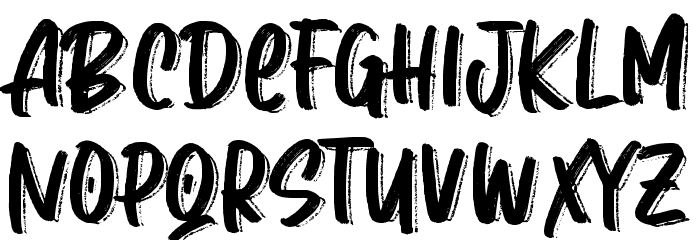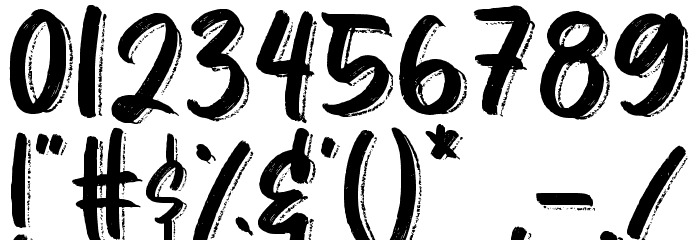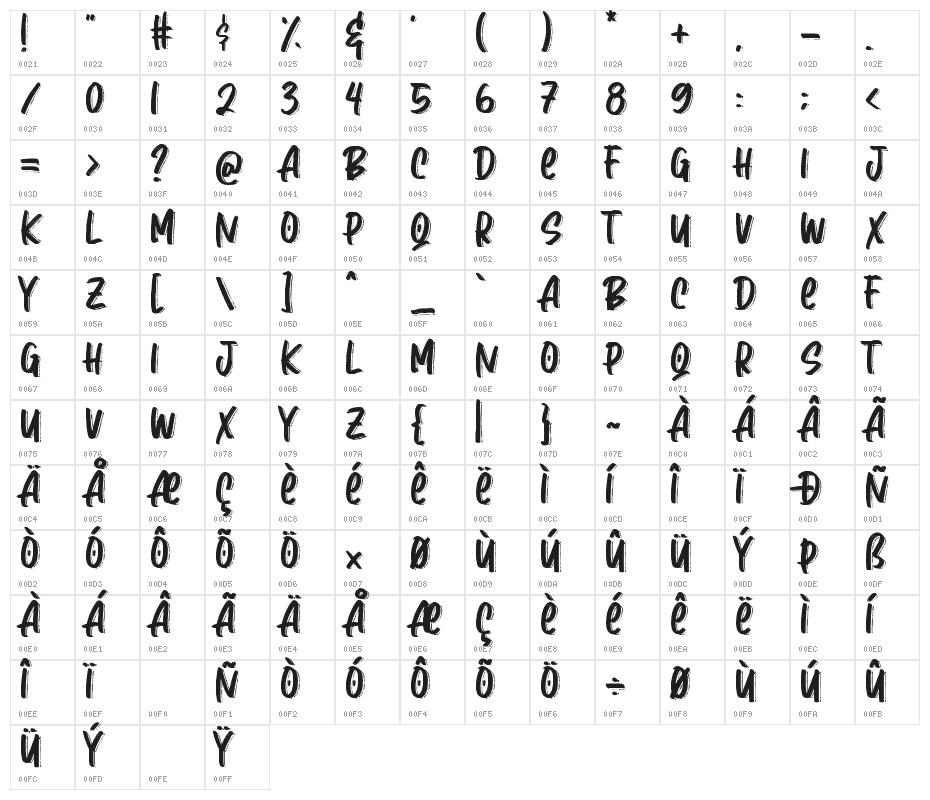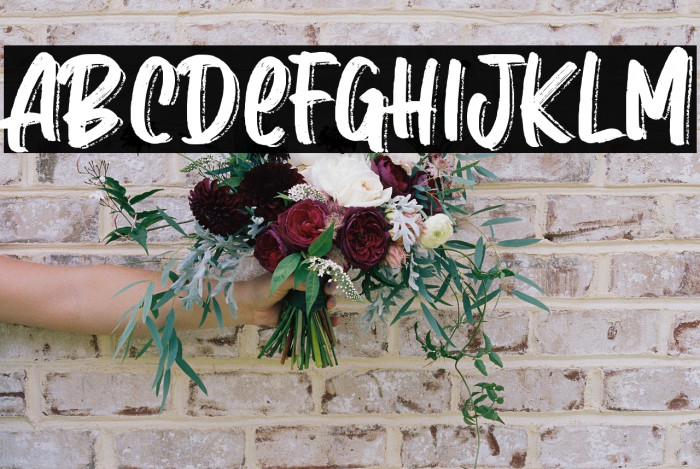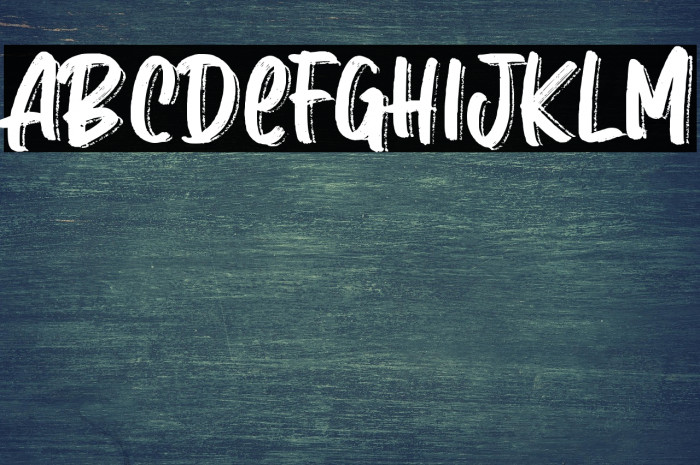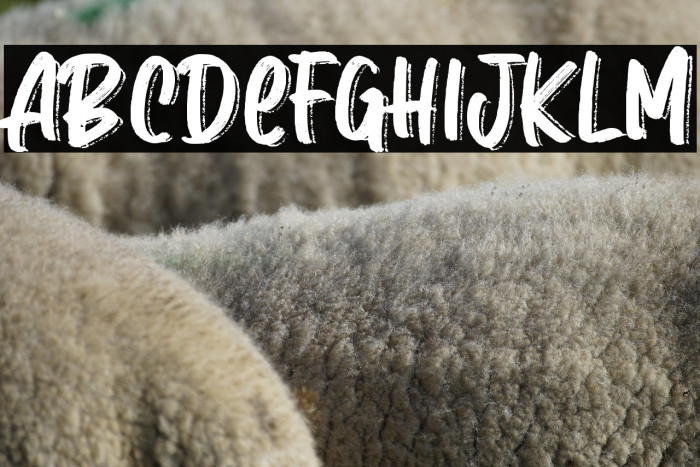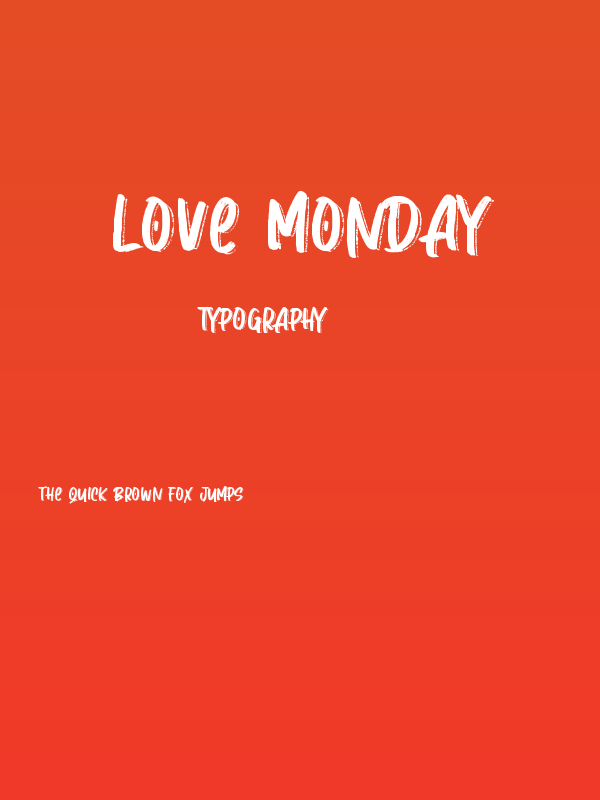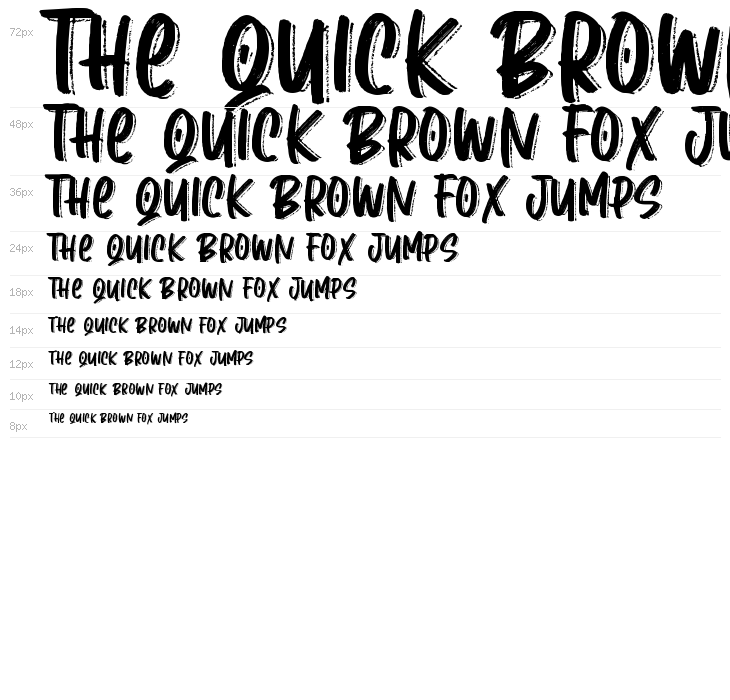
Love Monday Font
This font features a bold and expressive brush style, characterized by its dynamic and energetic strokes. The letters are crafted with a hand-painted appearance, giving them a raw and artistic feel. The uppercase and lowercase letters maintain a consistent style, with slightly irregular edges that enhance the handmade aesthetic. Numbers and special characters are designed to match the lively and spontaneous nature of the alphabet, making the font versatile for creative projects. The overall impression is one of movement and creativity, perfect for capturing attention and conveying a sense of individuality.
A bold, brush-style font with an energetic and artistic feel.
- Font: Love Monday
- Proposed Projects: Ideal for branding, posters, social media graphics, and any project requiring a bold, artistic touch.